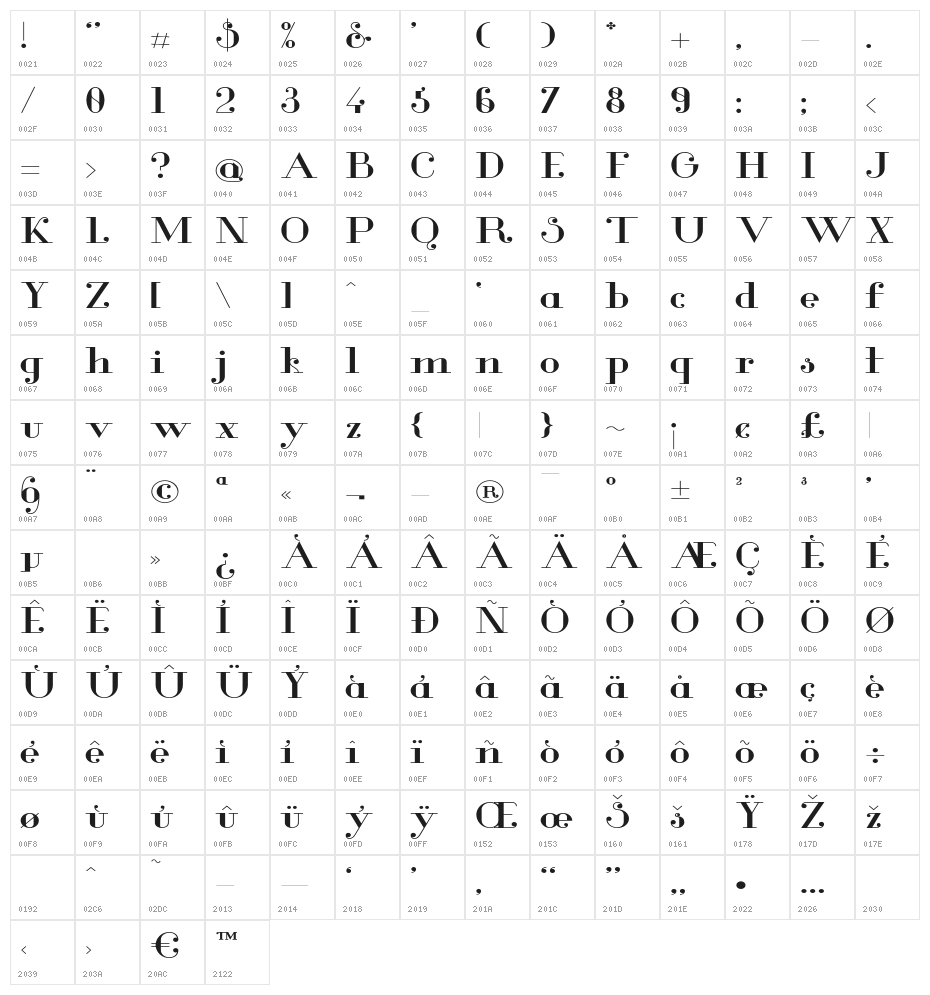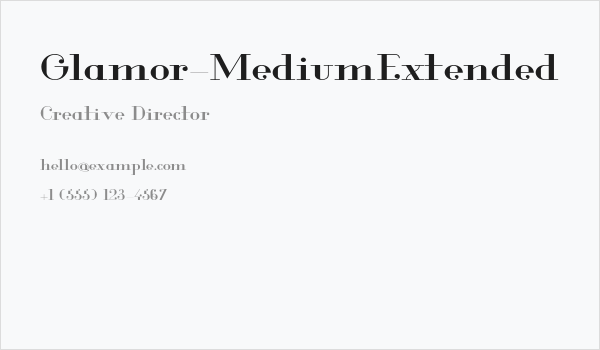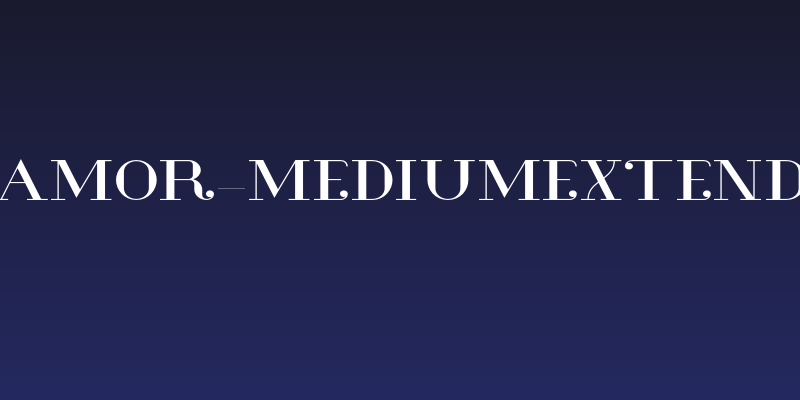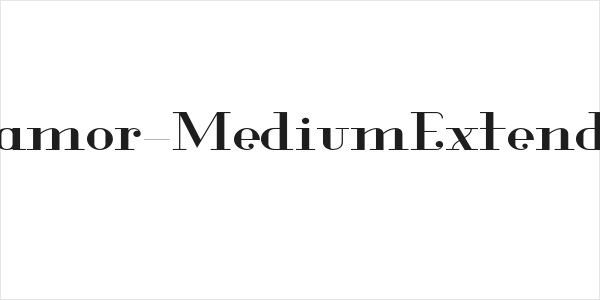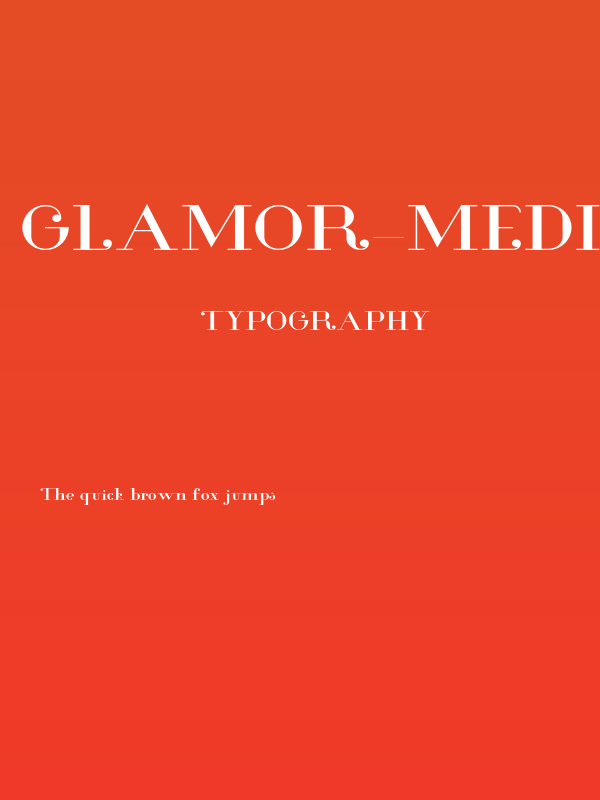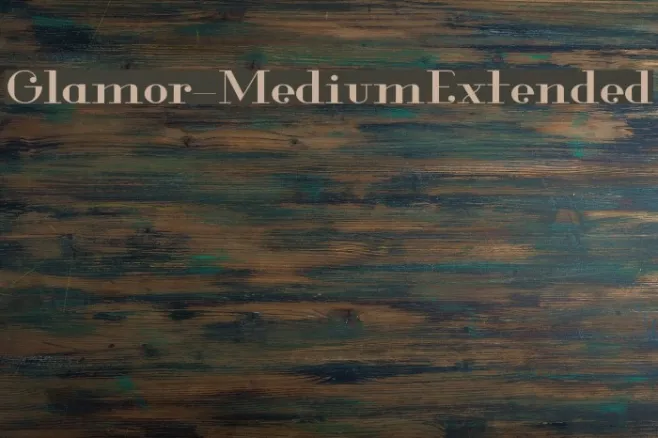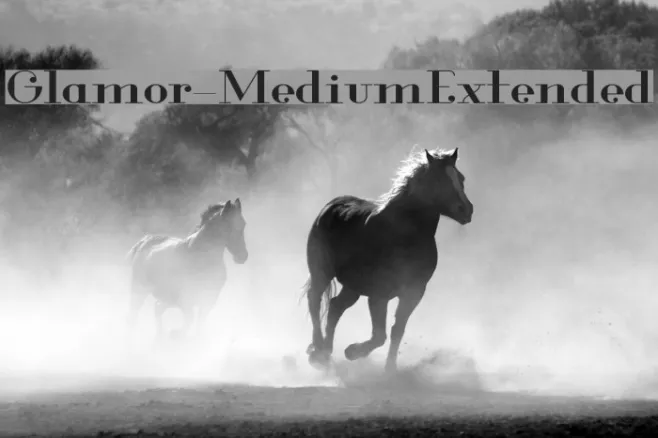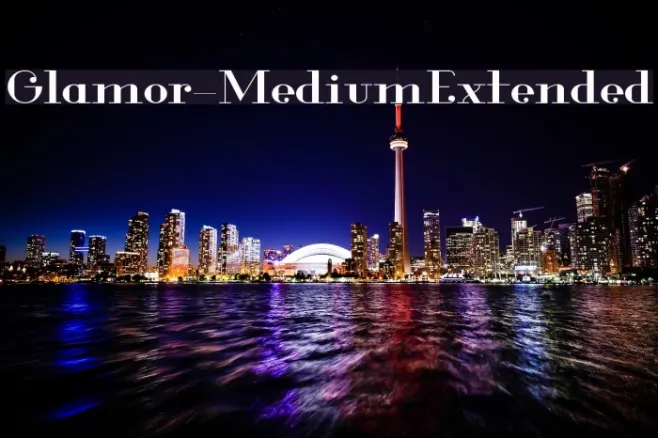
Glamor-MediumExtended Font
Glamor-MediumExtended Description
This font exudes elegance and sophistication with its high contrast between thick and thin strokes, creating a striking visual impact. The serifs are pronounced and add a touch of classic charm, while the overall design maintains a modern flair. The uppercase letters are bold and commanding, while the lowercase letters offer a softer, more refined look. The numerals are distinct and stylish, complementing the alphabetic characters perfectly. Special characters are thoughtfully designed, maintaining the font's cohesive aesthetic. This font is ideal for projects that require a touch of luxury and style.
| Proposed Projects | Perfect for luxury branding, editorial design, fashion magazines, and high-end product packaging. |